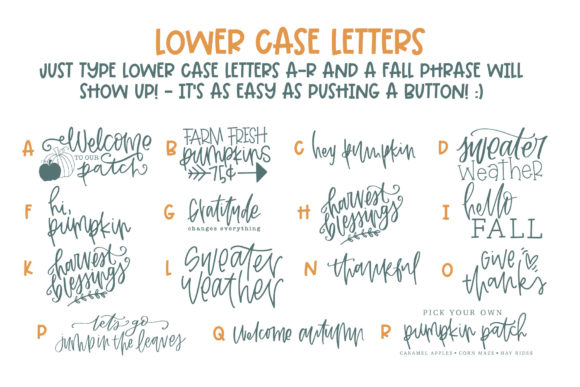
Fall Phrases Font
Fall Phrases is a charming decorative font. Fall in love with its authentic feel and use it to create gorgeous invitations, beautiful stationary art, eye-catching social media posts, and cute greeting cards.